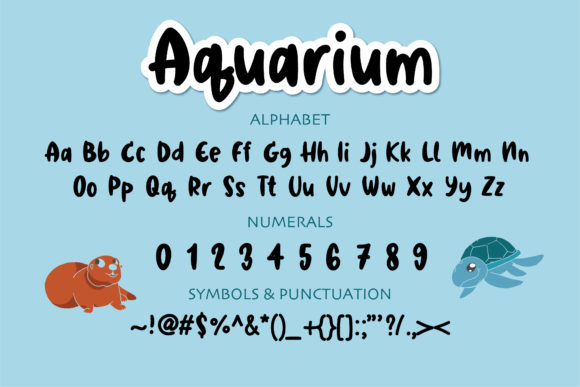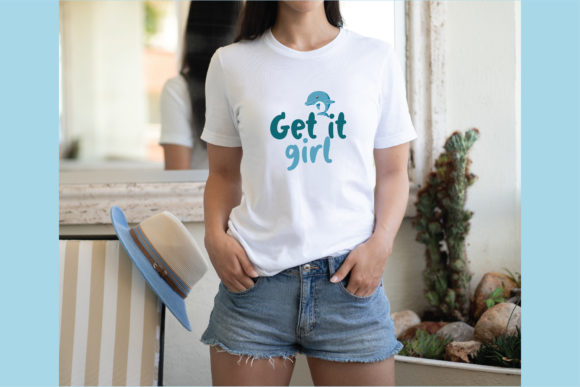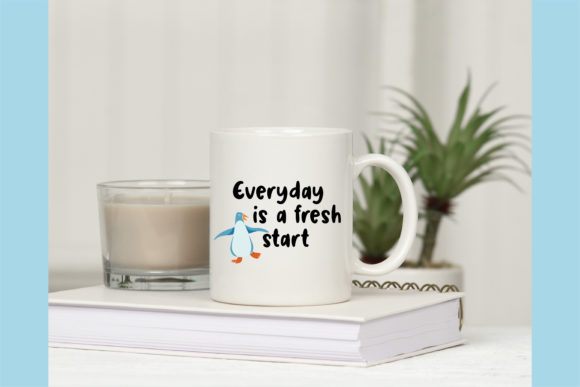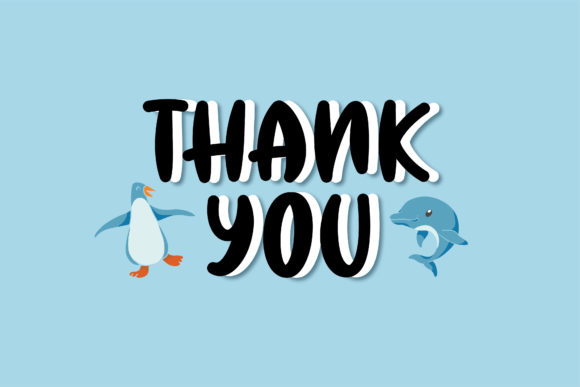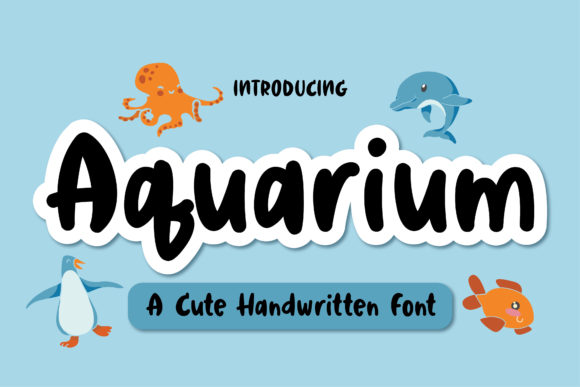
The Aquarium Font: A Lovely Handwritten Delight for Your Creative Projects
I’ll never forget the time I was working on a wedding invitation design for a dear friend’s big day. I had the perfect layout, the ideal color scheme, and a beautiful floral pattern, but something was missing – the right font. That’s when I stumbled upon the Aquarium font, and it instantly elevated my design to a whole new level. If you’re a designer, crafter, or creative hobbyist looking for a charming, handwritten font to add a personalized touch to your projects, you’re in the right place!
A Personal Review: What I Love About Aquarium Font
The Aquarium font is a lovely handwritten font that has become a staple in my design toolkit. Here’s what I love about it:
- ✨ Bouncy and charming style: The Aquarium font has a playful, energetic vibe that’s perfect for designs that need a bit of whimsy.
- ✅ Highly versatile: This font looks stunning on wedding invitations, thank you cards, quotes, greeting cards, logos, business cards, and more.
- 💕 Emotional connection: The handwritten nature of the font creates an instant emotional connection with your audience, making your designs feel more personal and relatable.
While the Aquarium font is an excellent choice for many projects, there are a few things to keep in mind:
- 🤔 Legibility at small sizes: Like many handwritten fonts, Aquarium can become a bit tricky to read at very small sizes. Make sure to test it in your design to ensure it’s legible.
- ⚠️ Overuse: While the font is lovely, using it excessively can make your design feel overwhelming. Balance is key!
The Story Behind Aquarium Font
The Aquarium font was inspired by the beauty of handwritten letters and the joy of creating something unique. Its designer aimed to craft a font that would bring a touch of whimsy and personality to any design project. With its bouncy, charming style, Aquarium font is sure to become a favorite among designers and crafters.
| What type of projects is Aquarium font best suited for? | Aquarium font is perfect for designs that need a personalized touch, such as wedding invitations, greeting cards, quotes, logos, and business cards. |
| Is Aquarium font suitable for body text? | While Aquarium font is beautiful, it’s best used as a display font or for short paragraphs of text. For longer body text, a more legible font might be a better choice. |